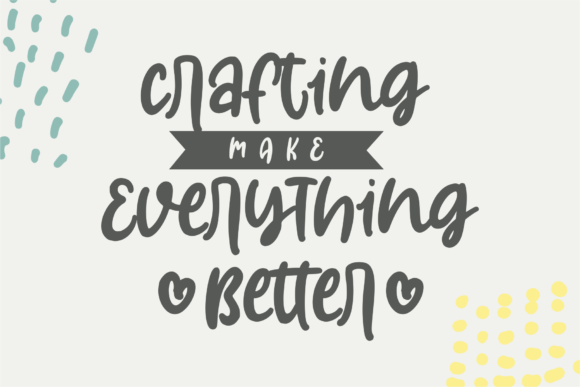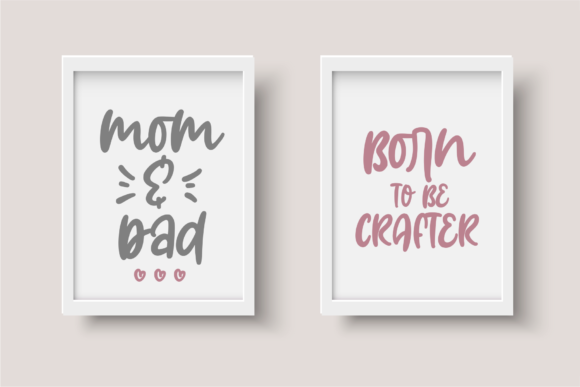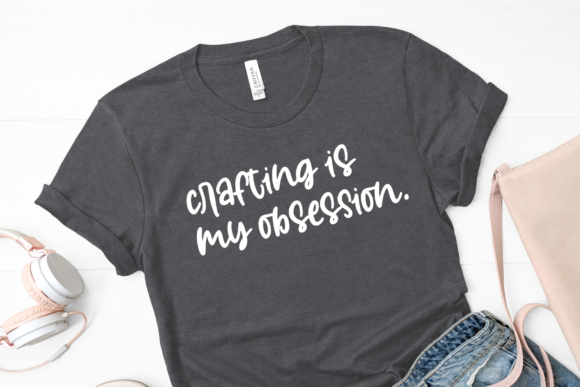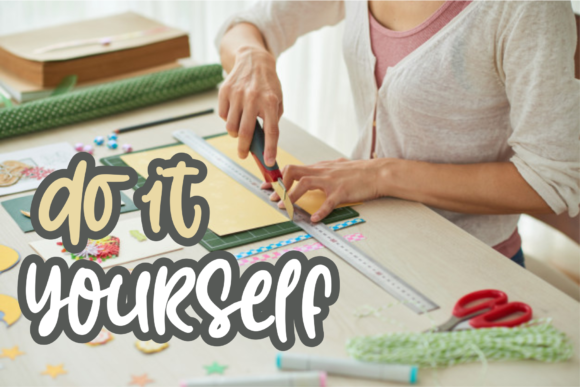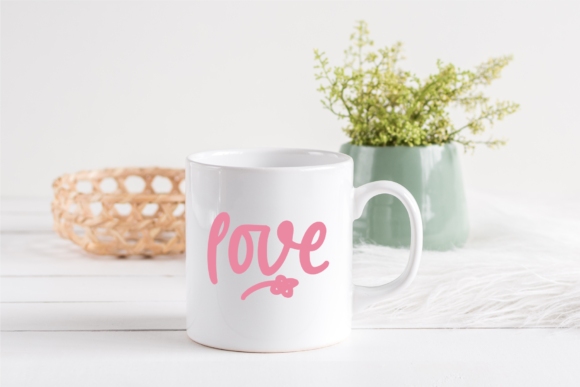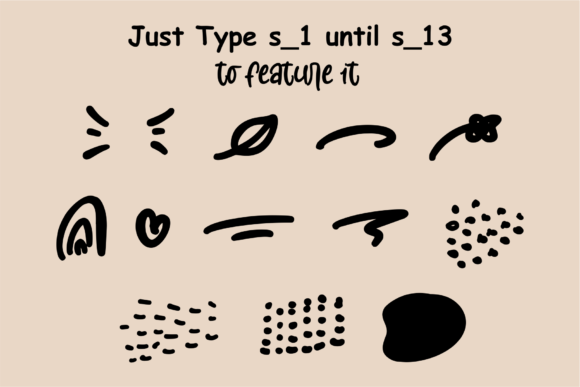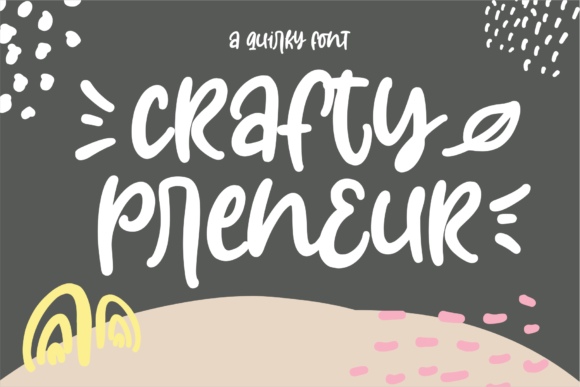
Craftypreneur Font: The Perfect Companion for Creative Minds
Are you a designer, crafter, or DIY enthusiast looking for a font that can elevate your creative projects? Look no further than Craftypreneur Font! This adorable and casual display font is designed to bring a friendly feel to your designs, making it perfect for a wide range of applications.
What is Craftypreneur Font?
Craftypreneur Font is a carefully crafted display font that exudes a sense of warmth and approachability. Its cute and casual design makes it an excellent choice for creative projects that require a personal touch. Whether you’re working on a DIY project, creating social media content, or designing a brand identity, Craftypreneur Font is sure to impress.
Key Features of Craftypreneur Font
- Cute and Casual Design: Craftypreneur Font boasts a playful and friendly design that’s perfect for creative projects.
- Incredibly Friendly Feel: The font’s warm and approachable tone makes it ideal for designs that require a personal touch.
- Versatile: Craftypreneur Font can be used for a wide range of applications, from Instagram posts to calligraphy scripts and DIY projects.
- Easy to Read: The font’s clear and legible design ensures that your message is conveyed effectively.
Perfect for Instagram and Social Media
In today’s digital age, having a strong social media presence is crucial for designers, crafters, and DIY enthusiasts. Craftypreneur Font is an excellent choice for Instagram posts, Facebook updates, and other social media content. Its friendly and approachable design is sure to engage your audience and help you build a loyal following.
Ideal for Calligraphy Scripts and DIY Projects
Craftypreneur Font is also perfect for calligraphy scripts and DIY projects. Its elegant and cursive design makes it an excellent choice for hand-lettering and calligraphy. Whether you’re creating a handmade card, a gift tag, or a DIY sign, Craftypreneur Font is sure to add a personal touch to your project.
- Create eye-catching Instagram posts and social media content.
- Design beautiful calligraphy scripts and hand-lettering pieces.
- Add a personal touch to your DIY projects, such as handmade cards and gift tags.
- Use the font to create a brand identity for your business or personal brand.
Benefits of Using Craftypreneur Font
By using Craftypreneur Font, you can:
- Elevate Your Designs: Add a touch of personality and whimsy to your designs.
- Save Time: The font’s clear and legible design ensures that your message is conveyed effectively.
- Stand Out: Craftypreneur Font is a unique and eye-catching font that’s sure to set you apart from the crowd.
- Build Your Brand: Use the font to create a consistent brand identity across all your designs.
Craftypreneur Font is a versatile and adorable display font that’s perfect for designers, crafters, and DIY enthusiasts. Its friendly and approachable design makes it an excellent choice for a wide range of applications, from social media content to calligraphy scripts and DIY projects. With its clear and legible design, Craftypreneur Font is sure to elevate your designs and help you build a loyal following.